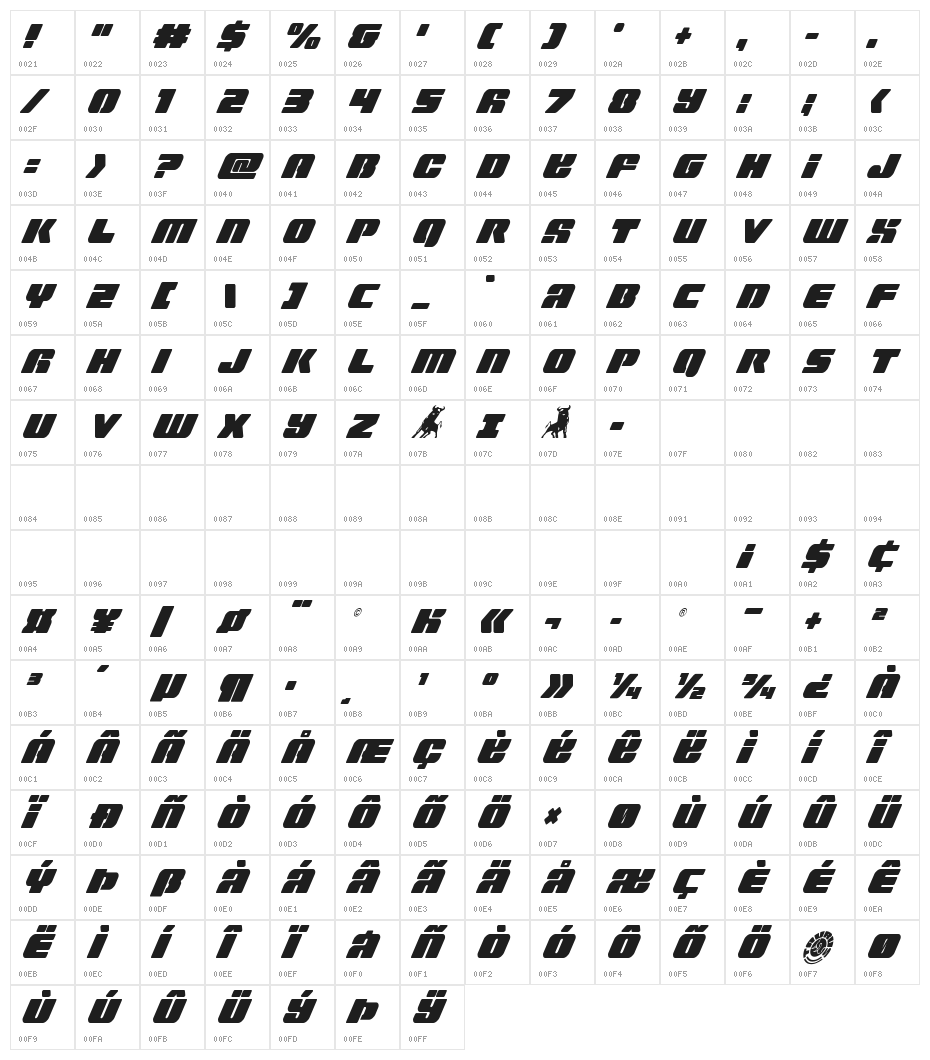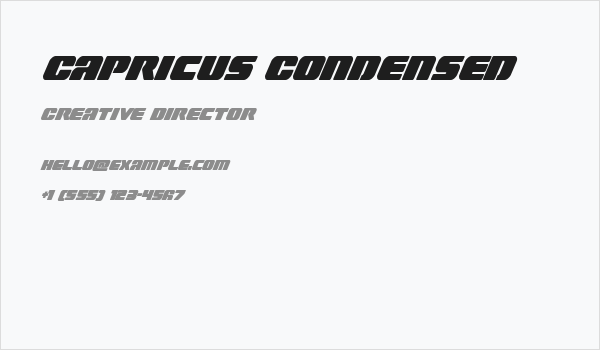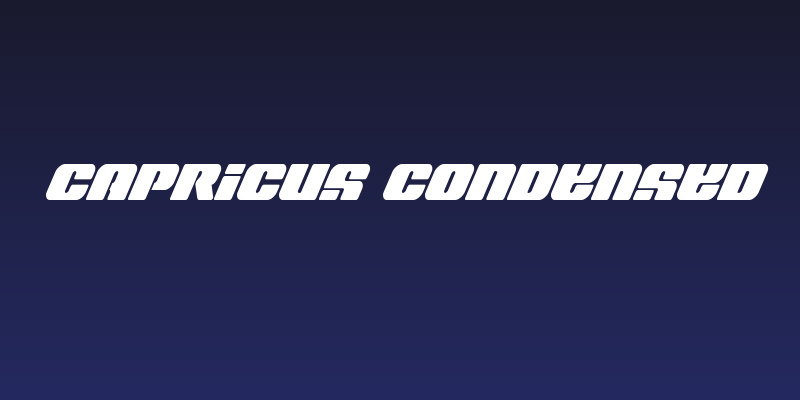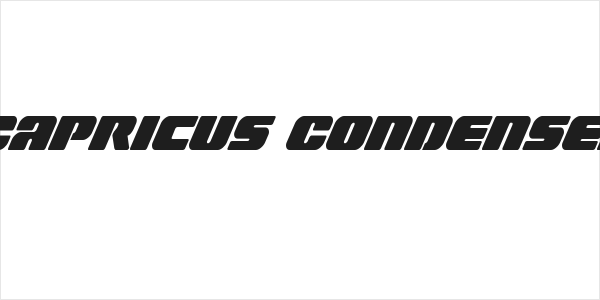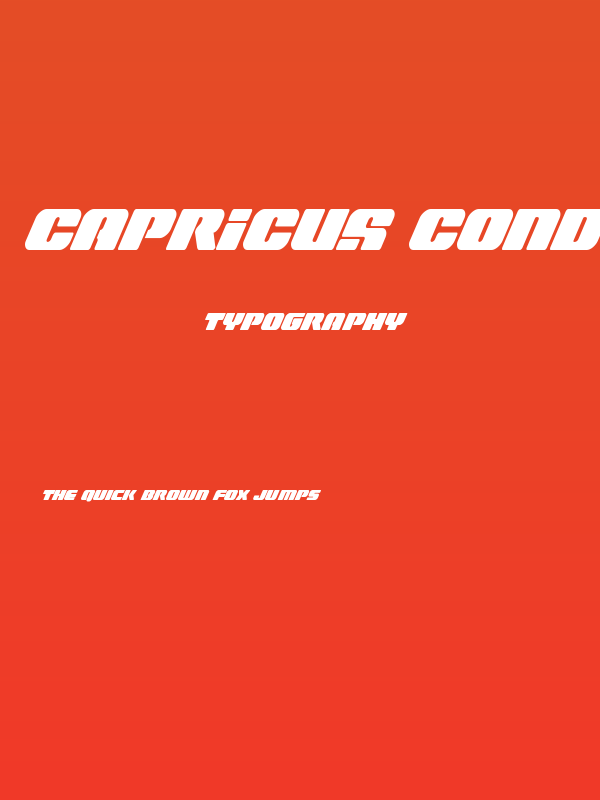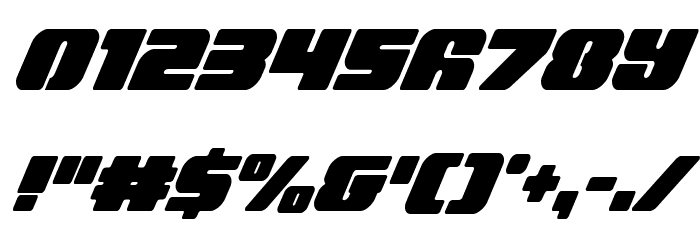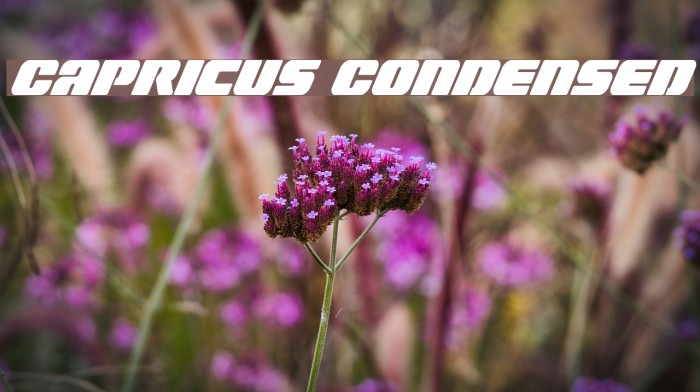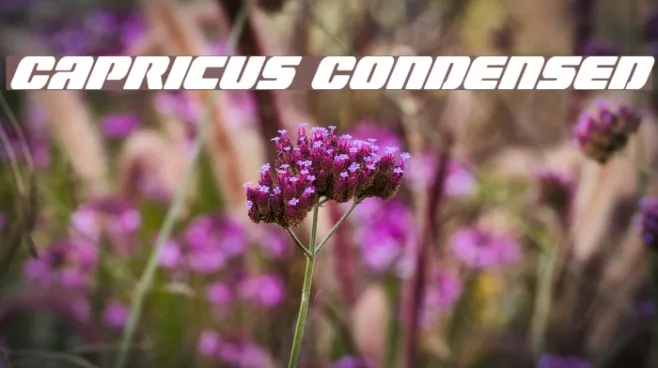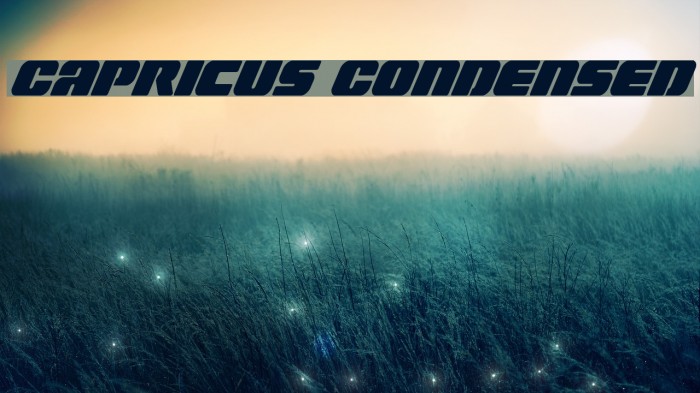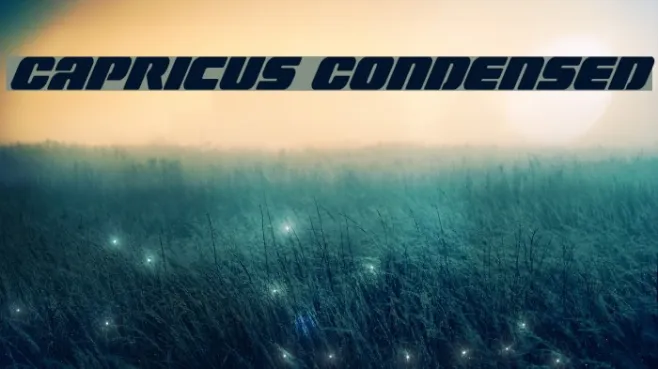
Capricus Condensed Font
Capricus Condensed Description
This font features a bold and dynamic design with a strong presence. The characters are condensed, giving it a compact and powerful look. The angular cuts and sharp edges create a sense of movement and energy, making it ideal for attention-grabbing headlines. The uniform stroke width across all characters provides a cohesive and modern appearance. The font includes a full set of uppercase and lowercase letters, numbers, and a variety of special characters, ensuring versatility for different design needs.
| Proposed Projects | Ideal for sports branding, dynamic posters, modern logos, and impactful headlines. |